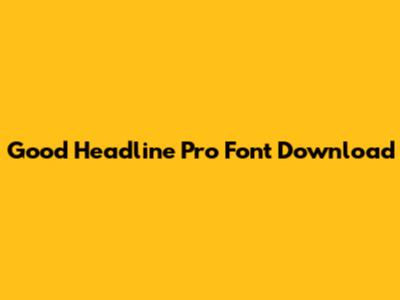
- Versatility: Suitable for headlines, body text, logos, and branding.
- Readability: Optimized kerning and clear letterforms ensure readability at any size.
- Modern Design: Clean and contemporary aesthetic that fits a variety of design styles.
- Multiple Weights: Often includes various weights (light, regular, bold) for design flexibility.
- Broad Language Support: Supports a wide range of languages, making it suitable for international projects.
- Headline Hierarchy: Use the bolder weights for main headlines and lighter weights for subheadings to create a clear visual hierarchy.
- Pairing with Other Fonts: Combine Good Headline Pro with a serif font for body text to add contrast and improve readability. Popular pairings include Georgia, Times New Roman, or Merriweather.
- Maintain Legibility: Ensure sufficient contrast between the font color and background. Avoid using it in very small sizes where readability may be compromised.
- Consistency: Use Good Headline Pro consistently across your branding and marketing materials to establish a cohesive visual identity.
- Consider the Context: Choose the appropriate weight and style based on the tone and message of your design. A light weight might be suitable for a modern, minimalist design, while a bold weight could be used for a more assertive and impactful message.
Are you looking to enhance your designs with a font that commands attention and exudes professionalism? Look no further! In this article, we'll explore everything you need to know about the Good Headline Pro font, including where to download it, its key features, and how to effectively use it in your projects. So, if you're ready to take your typography game to the next level, let's dive in!
What is Good Headline Pro Font?
Before we get into the nitty-gritty of downloading and using it, let's understand what makes the Good Headline Pro font so special. Good Headline Pro is a versatile and modern sans-serif typeface designed with clarity and impact in mind. It's perfect for headlines, logos, branding materials, and even body text where a clean and legible font is required. Its balanced letterforms and optimized kerning ensure readability across various sizes and platforms.
The Good Headline Pro font is more than just a collection of letters; it's a meticulously crafted design tool that brings a sense of sophistication and professionalism to any project. The font family often includes a variety of weights, from light to bold, and sometimes even italic styles, giving you the flexibility to create visual hierarchies and add emphasis where needed. The clean lines and open shapes of the characters make it easy on the eyes, ensuring that your message is communicated effectively, whether it's on a website, in a brochure, or on a billboard.
In addition to its aesthetic appeal and technical compatibility, the Good Headline Pro font also comes with a comprehensive set of features that make it a joy to work with. These features may include ligatures, which are special character combinations that enhance readability and add a touch of elegance to your typography. They may also include stylistic alternates, which provide different versions of certain characters, allowing you to customize the look and feel of your designs. Furthermore, the font often supports a wide range of languages, making it suitable for international projects.
The versatility of the Good Headline Pro font extends to various design applications. In branding, it can be used to create a strong and memorable brand identity, conveying a sense of trust and reliability. In web design, it ensures that your website's headings and body text are easy to read and visually appealing. In print design, it adds a touch of sophistication to brochures, posters, and other marketing materials. And in editorial design, it helps to create a clear and engaging reading experience.
In conclusion, the Good Headline Pro font is a powerful tool for designers who want to make a statement. Its clean lines, balanced letterforms, and comprehensive feature set make it a versatile choice for a wide range of design projects. Whether you're working on a website, a brochure, or a logo, the Good Headline Pro font will help you to communicate your message effectively and leave a lasting impression on your audience.